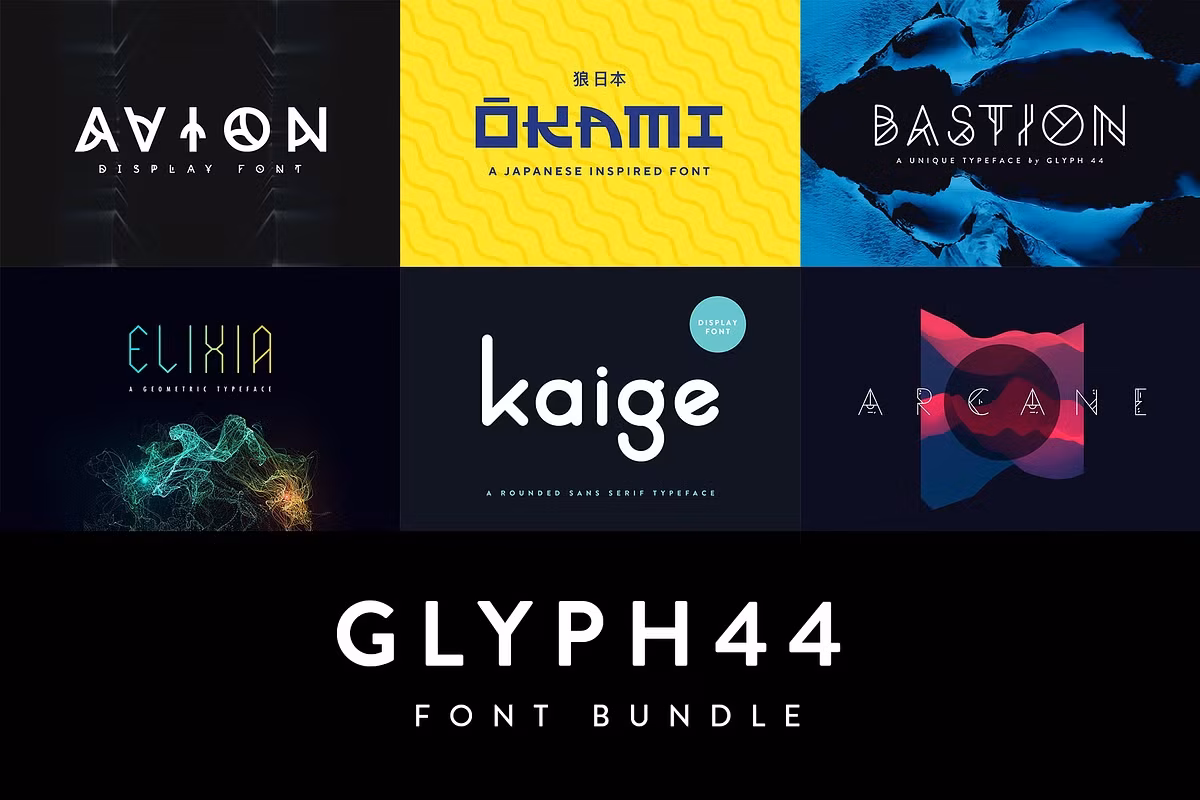
Glyph 44 | Font Bundle Free Download is a powerful and versatile collection of 44 unique fonts, designed to provide endless creative possibilities for your design projects. Whether you're working on branding, logos, posters, packaging, websites, or social media graphics, this bundle has a font for every occasion.
The fonts included in this bundle feature a wide range of styles, from modern sans serifs and elegant scripts to bold display fonts and vintage-inspired typefaces. With this variety, you'll have everything you need to bring your creative ideas to life with confidence and style.